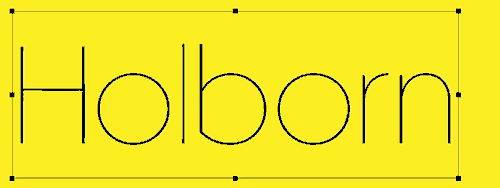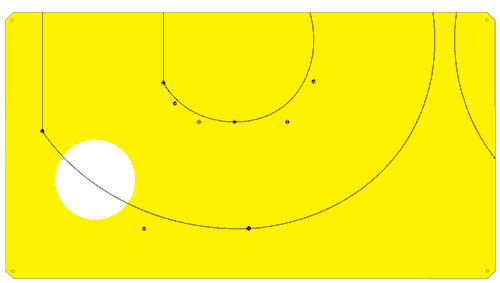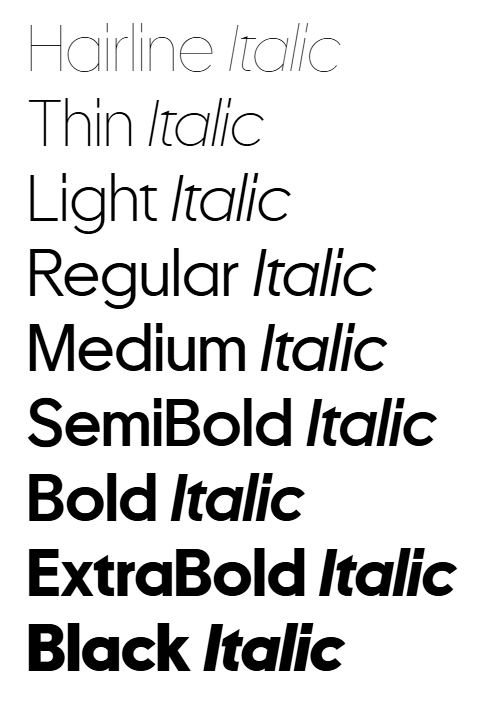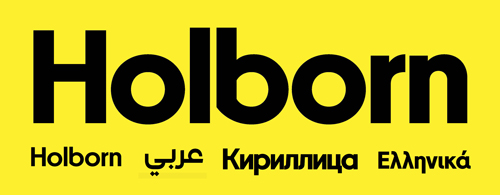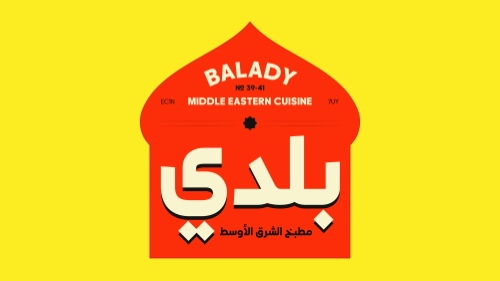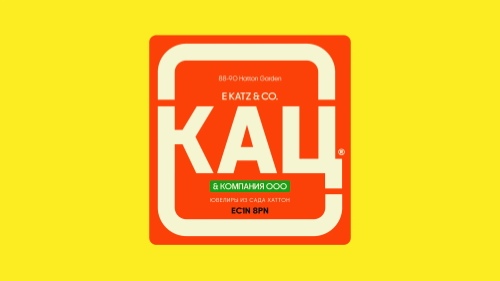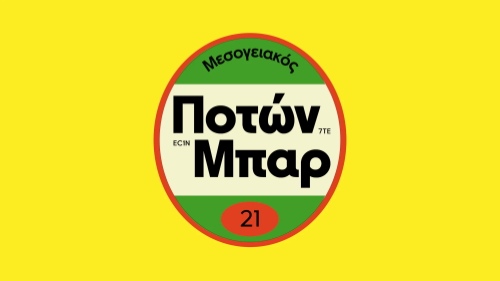
Holborn - 18 Styles + Variable Font
LATIN+ARABIC+CYRILLIC+GREEK | Multilingual
- F37 Holborn® captures the dual spirit of 1970s typography, a decade where clarity met character. Balancing the structure of the geometric sans with the warmth of early grotesques, it reflects an era when corporate modernism and creative expression coexisted in type. With a bold simplicity, generous x-height, open apertures and robust angled terminals, F37 Holborn® feels confident and clear. While small quirks, like the spurless b and q echoed in the numerals 6 and 9, the offset diagonals of the k and the sturdy spur of the t, give F37 Holborn® its individuality.